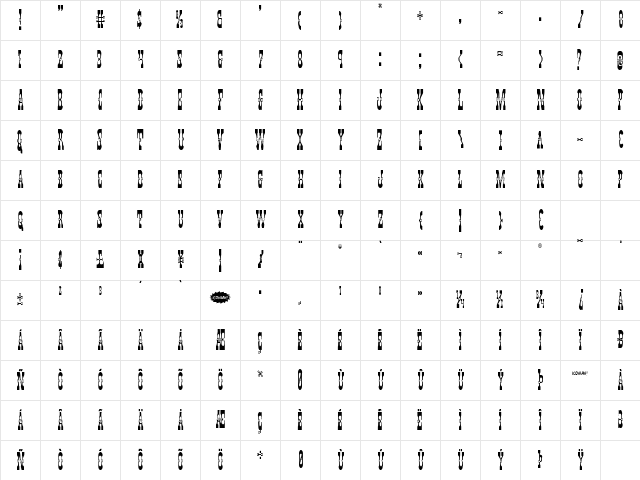
Younger Brothers Condensed Condensed
Design Context for Younger Brothers Condensed
Younger Brothers Condensed is a composed and adaptable typeface that performs quietly and consistently across a wide range of design contexts. Its narrow stance lets it pack a punch even in space-constrained designs.